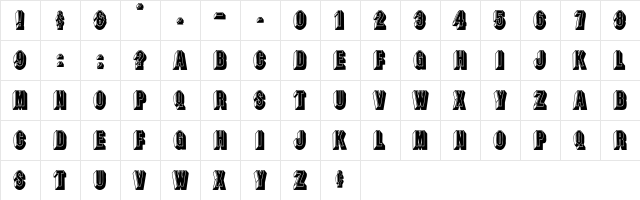
LeeCaps Cn Regular
Design Context for LeeCaps Cn Typeface
LeeCaps Cn is a composed and adaptable typeface that performs quietly and consistently across a wide range of design contexts.